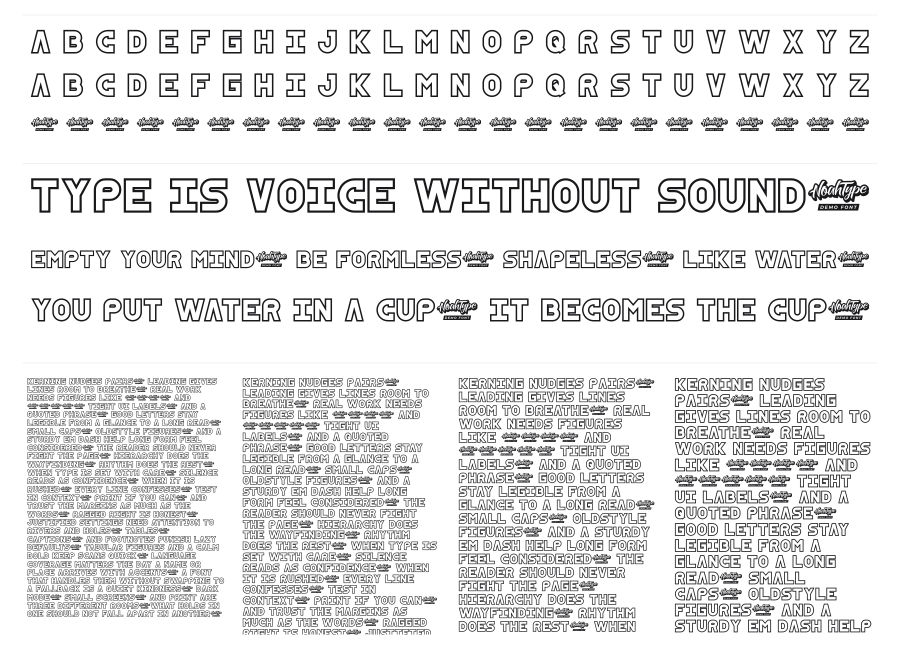
SkyMid
SkyMid is a wide geometric outline sans with a bold, futuristic personality. Each character is built from thick strokes with an inline outline treatment and softly rounded corners that give it a space-age, almost cinematic quality. Works best at large sizes for titles, posters, and gaming or entertainment branding.